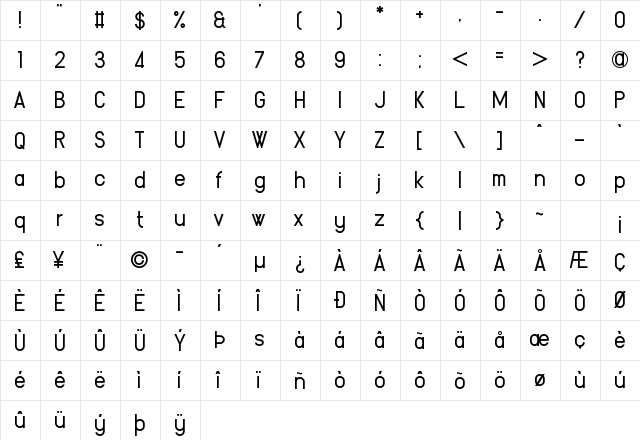
Yetimology Regular
| Designer | Andrew McCluskey |
Design Context for Yetimology Typeface
Yetimology takes a measured approach to typography — its balanced proportions and neutral character make it a reliable workhorse for both digital and print work.
Pro Tip: Pair Yetimology with a font of contrasting weight or personality to build a more expressive typographic hierarchy.